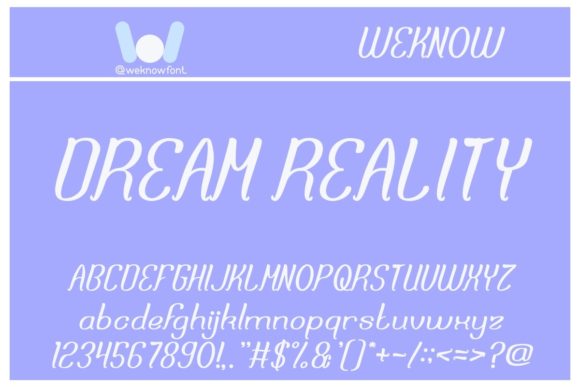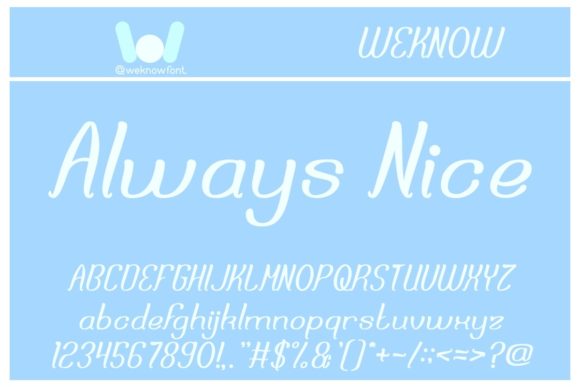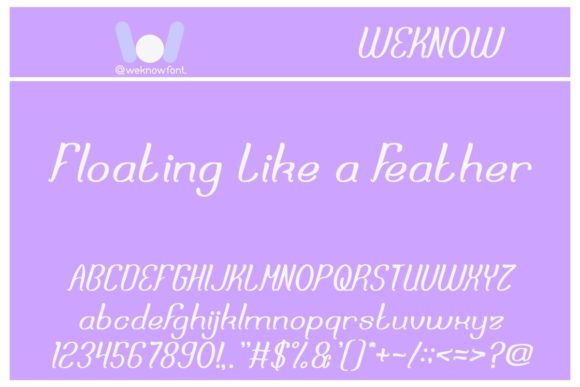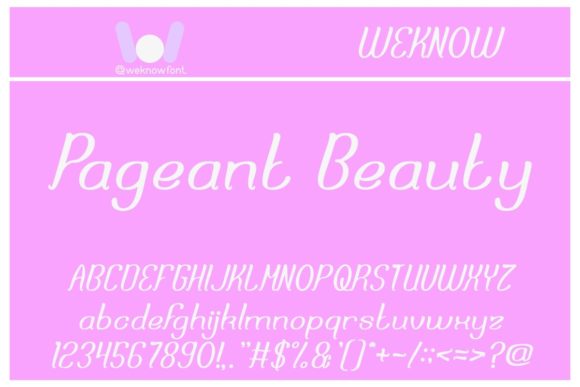
Dream Reality Font: Elevate Your Designs with Elegance and Sophistication
In the world of design, fonts play a crucial role in conveying the tone and personality of a brand or creative project. For those seeking a touch of elegance and sophistication, the Dream Reality Font is an excellent choice. This fancy and chic handwritten font is perfect for designers and crafters looking to add a unique flair to their work.
What is Dream Reality Font?
Dream Reality Font is a beautifully crafted handwritten font that exudes luxury and refinement. Its elegant strokes and flowing curves make it an ideal choice for a wide range of design projects, from logos and brand identity to apparel, posters, music, movies, games, magazines, books, comics, cartoons, and more.
Key Features of Dream Reality Font
- Fancy and Chic: Dream Reality Font boasts a sophisticated and stylish aesthetic, perfect for designs that require a touch of elegance.
- Handwritten: The font’s handwritten nature gives it a personal and unique feel, making it stand out from more traditional fonts.
- Versatile: With its wide range of applications, Dream Reality Font is an excellent addition to any designer’s toolkit.
- Easy to Read: Despite its ornate appearance, the font remains easy to read, making it suitable for both headings and body text.
Perfect for Creative Design Projects
Dream Reality Font is an excellent choice for various creative design projects, including:
- Logos and Brand Identity: Create a lasting impression with a unique and memorable logo that showcases your brand’s personality.
- Apparel Industry: Add a touch of sophistication to your clothing and accessories with custom labels, tags, or packaging.
- Posters and Flyers: Grab attention with eye-catching posters and flyers that feature bold, elegant text.
- Music, Movie, and Game: Elevate your creative projects with stylish titles, credits, or promotional materials.
- Magazines, Books, and Comics: Add a touch of elegance to your publications with Dream Reality Font, perfect for headings, titles, or quotes.
- Social Media: Stand out on YouTube, Instagram, and other social media platforms with stylish text overlays, titles, or graphics.
- Websites: Enhance your website’s visual appeal with Dream Reality Font, perfect for headings, titles, or call-to-actions.
Why Choose Dream Reality Font?
With so many fonts available, why choose Dream Reality Font? Here are a few compelling reasons:
- Unique and Exclusive: Dream Reality Font offers a distinctive style that sets it apart from more common fonts.
- High-Quality: The font is crafted with attention to detail, ensuring a crisp and clean appearance in any design.
- Time-Saving: With Dream Reality Font, you can quickly create stunning designs without spending hours searching for the perfect font.
Tips for Using Dream Reality Font
To get the most out of Dream Reality Font, consider the following tips:
- Pair with Simple Fonts: Combine Dream Reality Font with simpler fonts to create visual contrast and hierarchy.
- Experiment with Colors: Try different colors and gradients to enhance the font’s elegance and sophistication.
- Use for Headings: Dream Reality Font is perfect for headings, titles, and emphasis text, but consider using a simpler font for body text.
Dream Reality Font is an exceptional choice for designers and crafters seeking to add a touch of elegance and sophistication to their work. With its fancy and chic handwritten style, versatility, and ease of use, this font is perfect for a wide range of creative design projects. Whether you’re working on a logo, brand identity, apparel, or social media graphics, Dream Reality Font is sure to elevate your designs and leave a lasting impression.